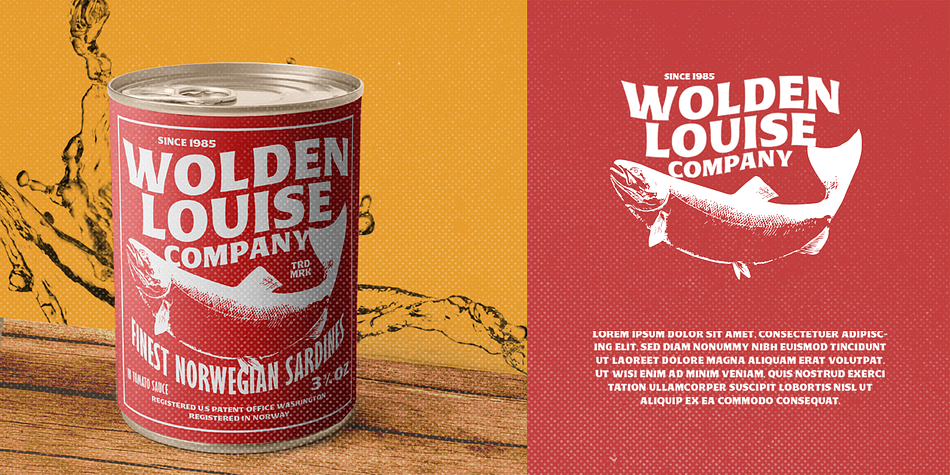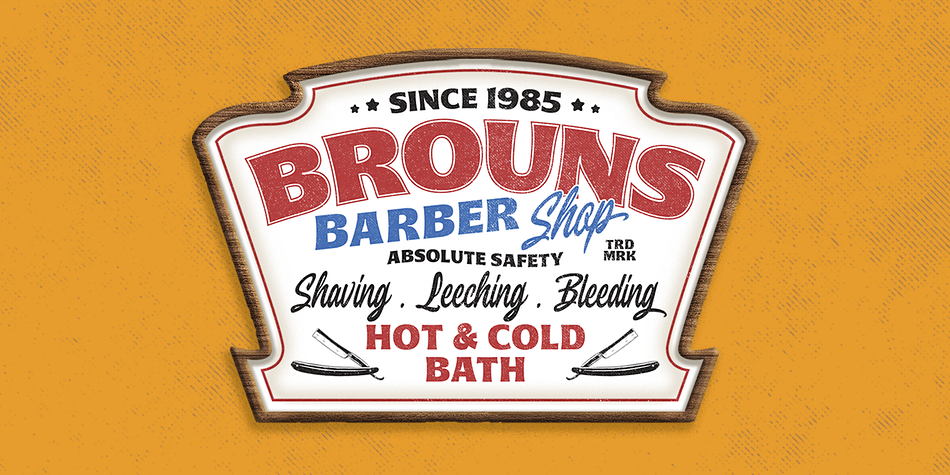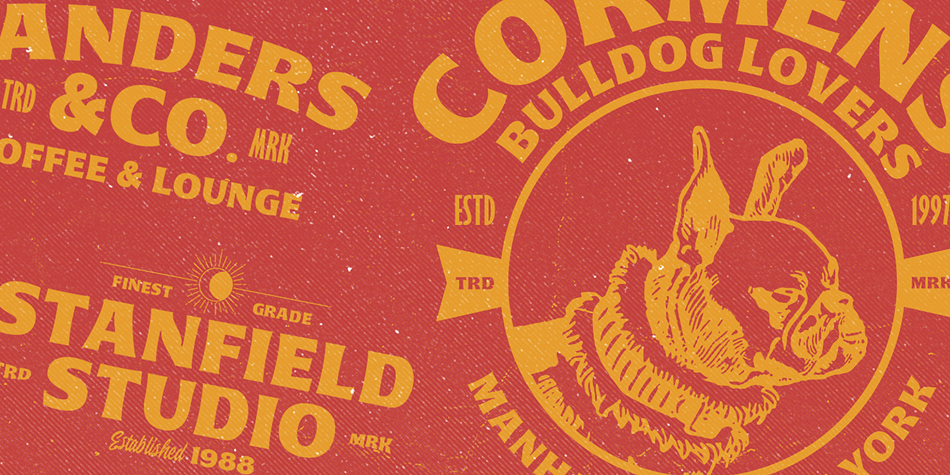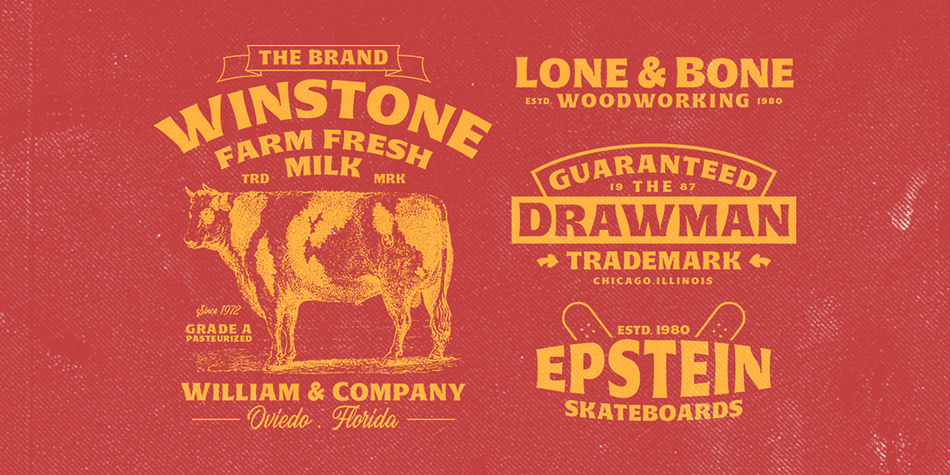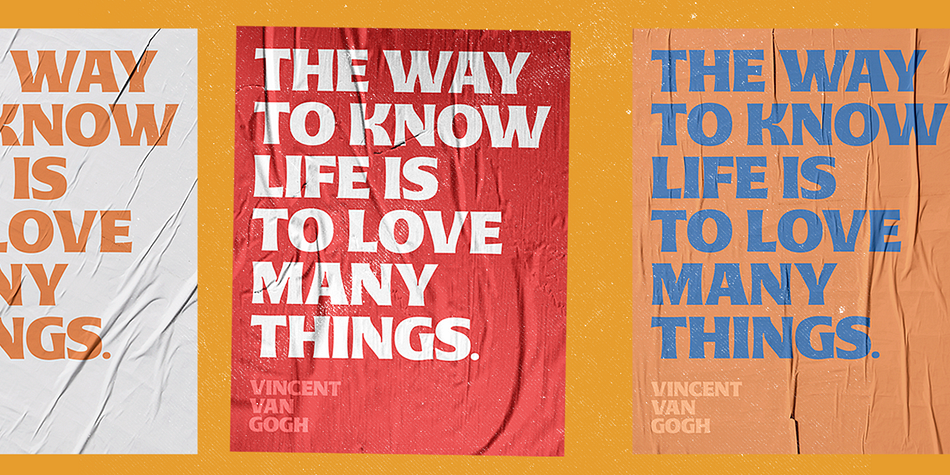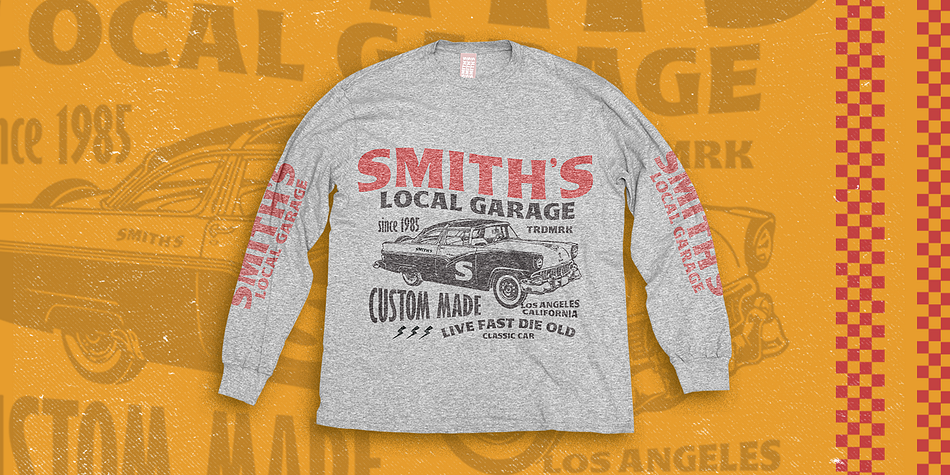
Designed by Hendry Juanda, Golden Pepper is a display sans font family published by Letterhend Studio.
Golden Pepper is a vintage display typeface with the touch of nostalgic feel. The bold looks make this font standout to be used as a title or a logo. This font perfectly made to be applied especially in logo, and the other various formal forms such as invitations, labels, magazines, books, greeting / wedding cards, packaging, fashion, make up, stationery, novels, labels or any type of advertising purpose.